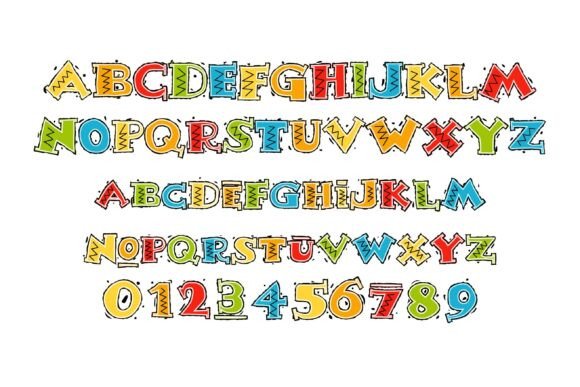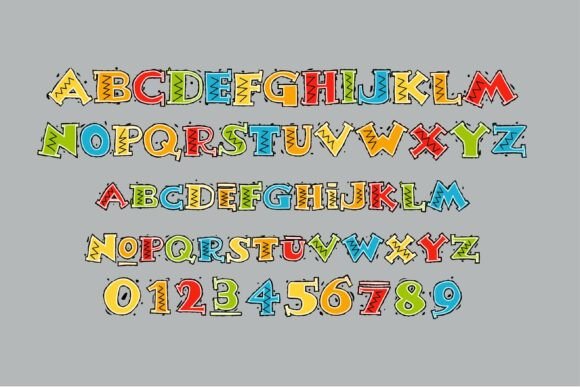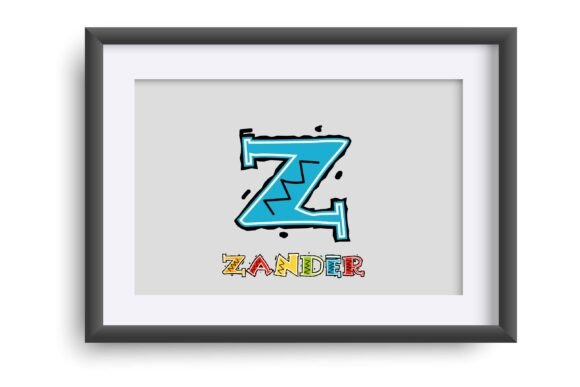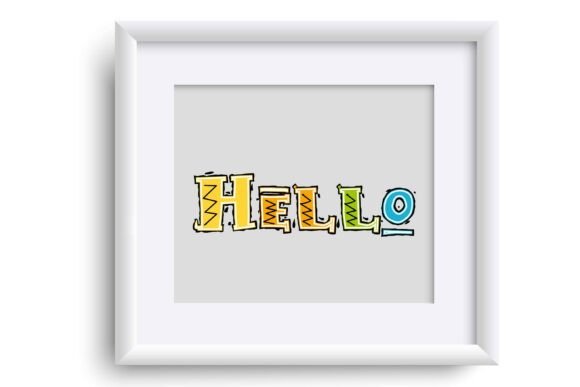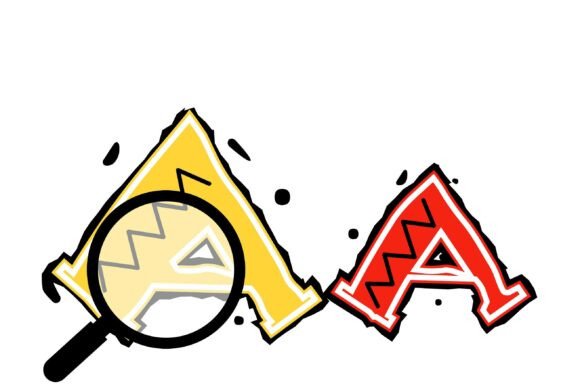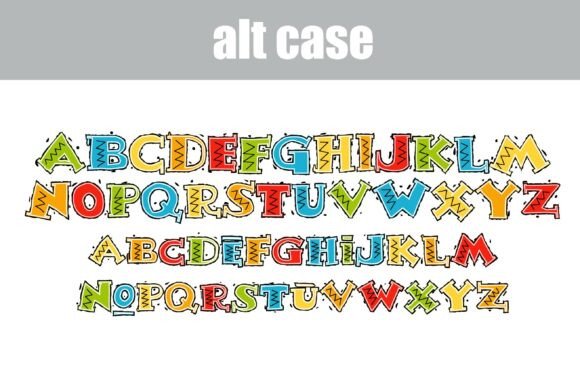
Ignite Your Festive Designs with Cinco de Mayo Font
Cinco de Mayo, a day of celebration, festivities, and vibrant colors! And what better way to capture the essence of this joyous occasion than with a font that’s just as lively and energetic? Look no further than the Cinco de Mayo font, a high-energy display typeface that’s sure to add a spark to your designs.
A Font that Embodies the Spirit of Cinco de Mayo
This full-color SVG font is designed to capture the “vibrant-and-vivacious” soul of Cinco de Mayo. Its bold, hand-sketched letterforms are uniquely characterized by rhythmic “zig-zag” internal patterns, giving it a dynamic and playful feel. The font’s diverse primary palette bridges the gap between traditional Mexican folk art and modern party branding, making it the perfect choice for any design that needs a festive touch.
Key Features of the Cinco de Mayo Font
- Bold and Eye-Catching: The font’s heavy structural weight makes it perfect for grabbing attention and adding a pop of color to your designs.
- Hand-Sketched Letterforms: Each letterform is carefully hand-sketched, giving the font a unique and personal touch.
- Rhythmic Zig-Zag Patterns: The internal zig-zag patterns add a dynamic and rhythmic feel to the font, making it perfect for designs that need a bit of energy.
- Diverse Primary Palette: The font’s palette is carefully curated to bridge the gap between traditional Mexican folk art and modern party branding, making it versatile and easy to use.
- Full-Color SVG: The font is available as a full-color SVG, making it easy to use and edit in your designs.
Perfect for Festive Designs
The Cinco de Mayo font is perfect for any design that needs a festive touch. Here are some ideas for using this amazing font:
- Independent Cantina Identities: Create a bold and eye-catching logo for your cantina or Mexican-inspired business.
- Boutique Fiesta Invitations: Add a touch of elegance and sophistication to your fiesta invitations with this unique font.
- Seasonal Event Signage: Create eye-catching signage for your seasonal events, such as Cinco de Mayo celebrations or festivals.
- High-Impact Social Media Headers: Add a pop of color and energy to your social media headers with this vibrant font.
Why Choose the Cinco de Mayo Font?
With so many fonts available, why choose the Cinco de Mayo font? Here are just a few reasons:
- Unique and Authentic: This font is carefully designed to capture the essence of Cinco de Mayo, making it a unique and authentic choice for your designs.
- Versatile: The font’s diverse primary palette and bold letterforms make it versatile and easy to use in a variety of designs.
- High-Energy: The font’s rhythmic zig-zag patterns and bold structural weight make it perfect for designs that need a bit of energy and excitement.
If you’re looking for a font that’s sure to add a spark to your designs, look no further than the Cinco de Mayo font. With its bold and eye-catching letterforms, rhythmic zig-zag patterns, and diverse primary palette, this font is perfect for any design that needs a festive touch. Whether you’re creating independent cantina identities, boutique fiesta invitations, seasonal event signage, or high-impact social media headers, this font is sure to ignite your designs and capture the essence of Cinco de Mayo.
Get Ready to Celebrate with Cinco de Mayo Font!